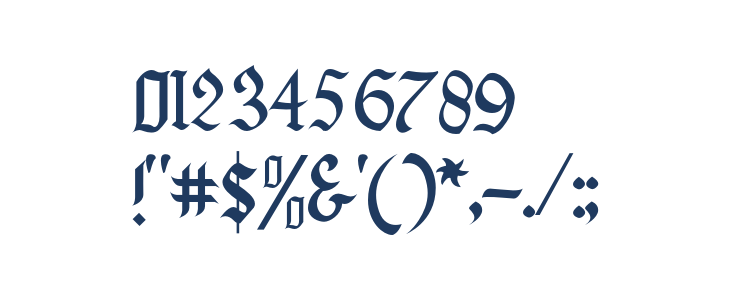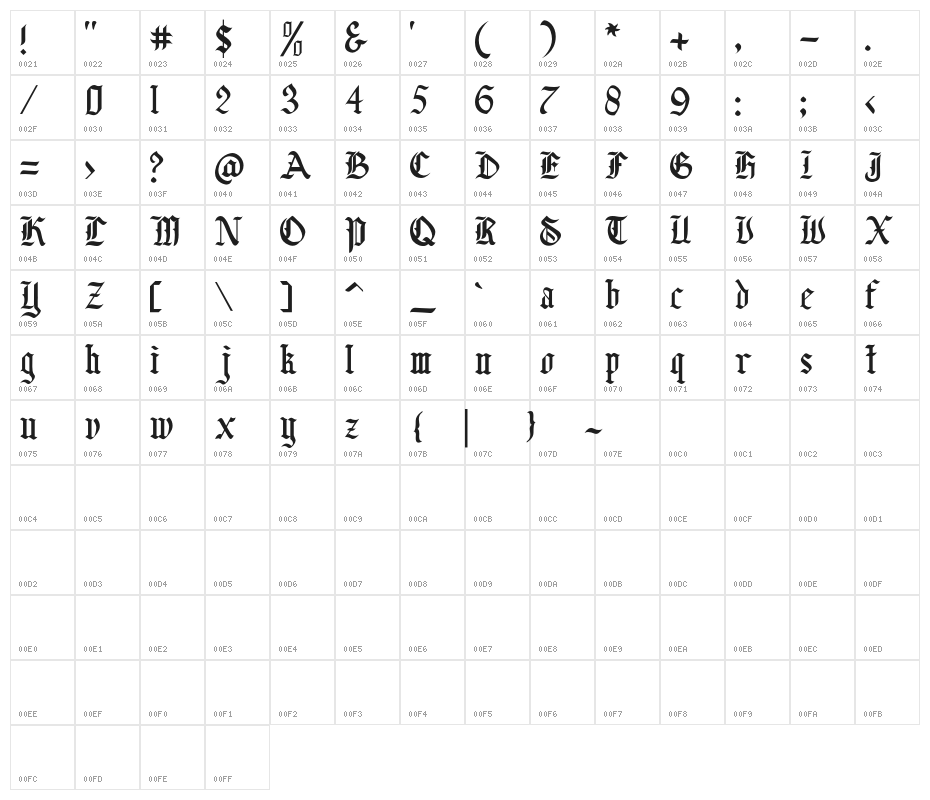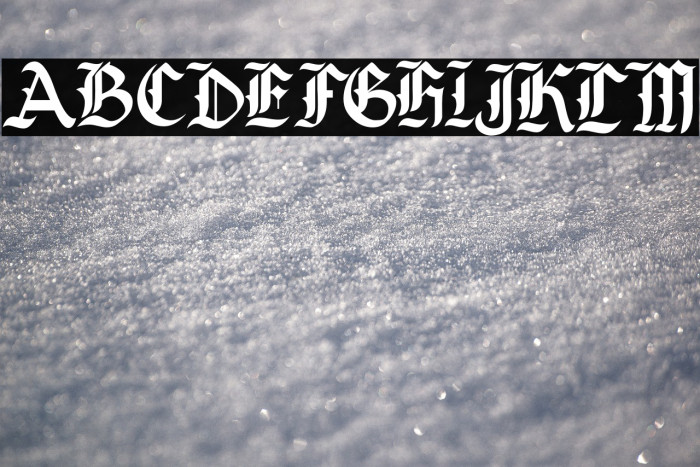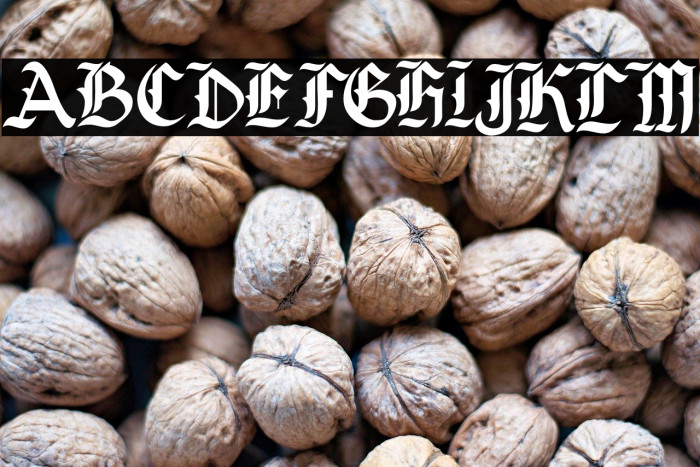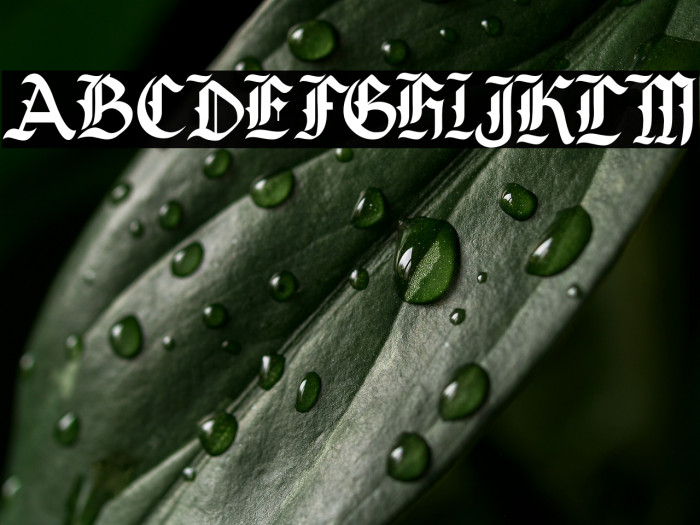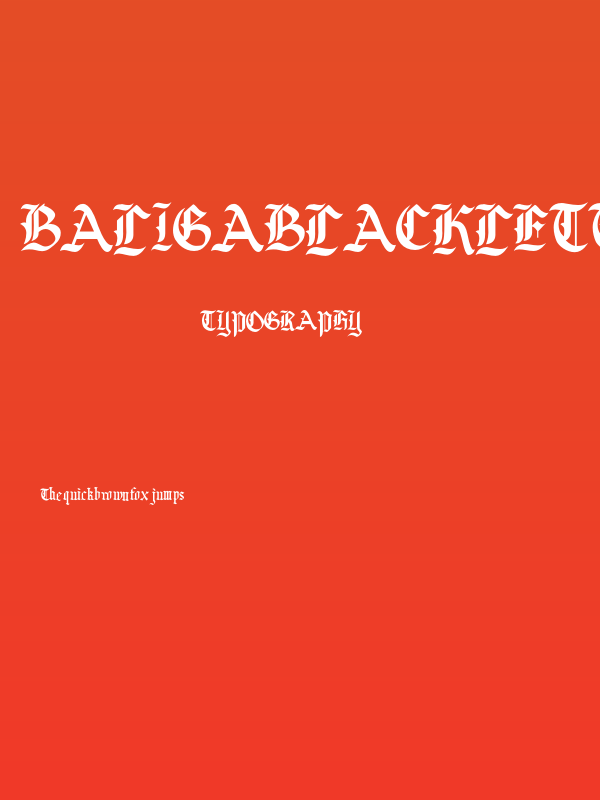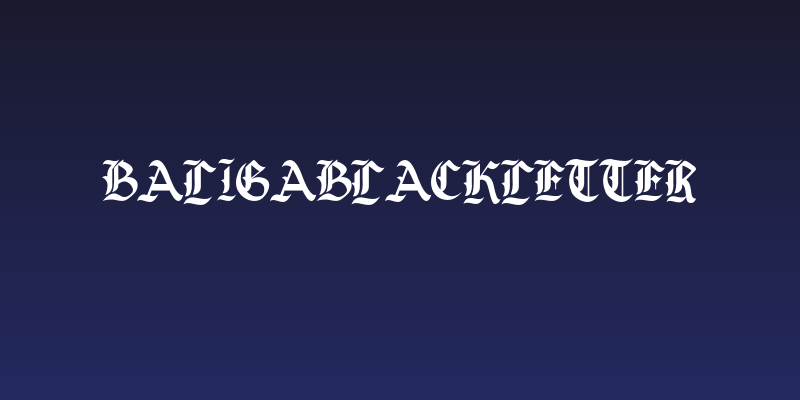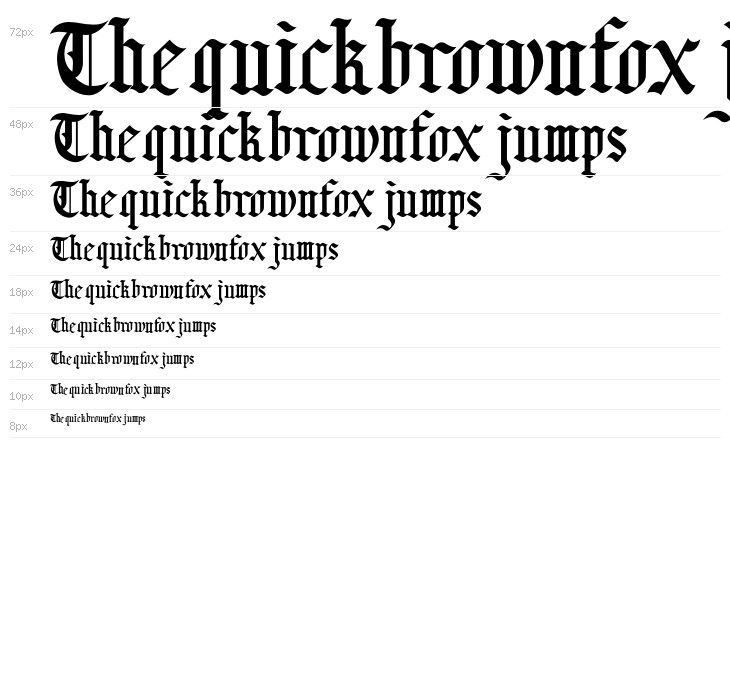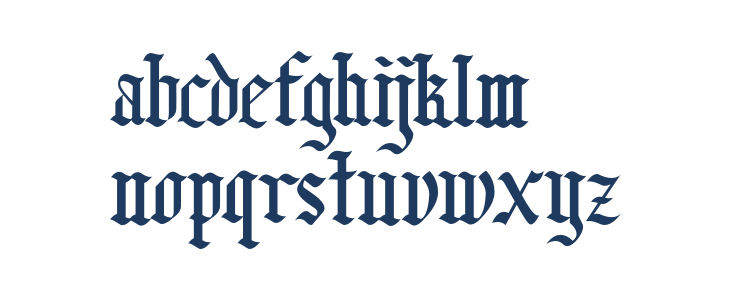
BaligaBlackletter Font
BaligaBlackletter Description
This font embodies the traditional elegance of blackletter typography, characterized by its intricate and ornate letterforms. The uppercase letters feature sharp, angular strokes with decorative flourishes, while the lowercase letters maintain a consistent style with a slightly more subdued appearance. The numerals are distinct, with a medieval flair that complements the overall aesthetic. Special characters are designed with the same attention to detail, enhancing the font's cohesive look. The bold strokes and high contrast between thick and thin lines give it a commanding presence, making it ideal for projects that require a historical or gothic touch.
| Use Case | Headlines, Logos, Decorative text |
| Proposed Projects | Suitable for historical documents, gothic-themed designs, book covers, and event invitations. |